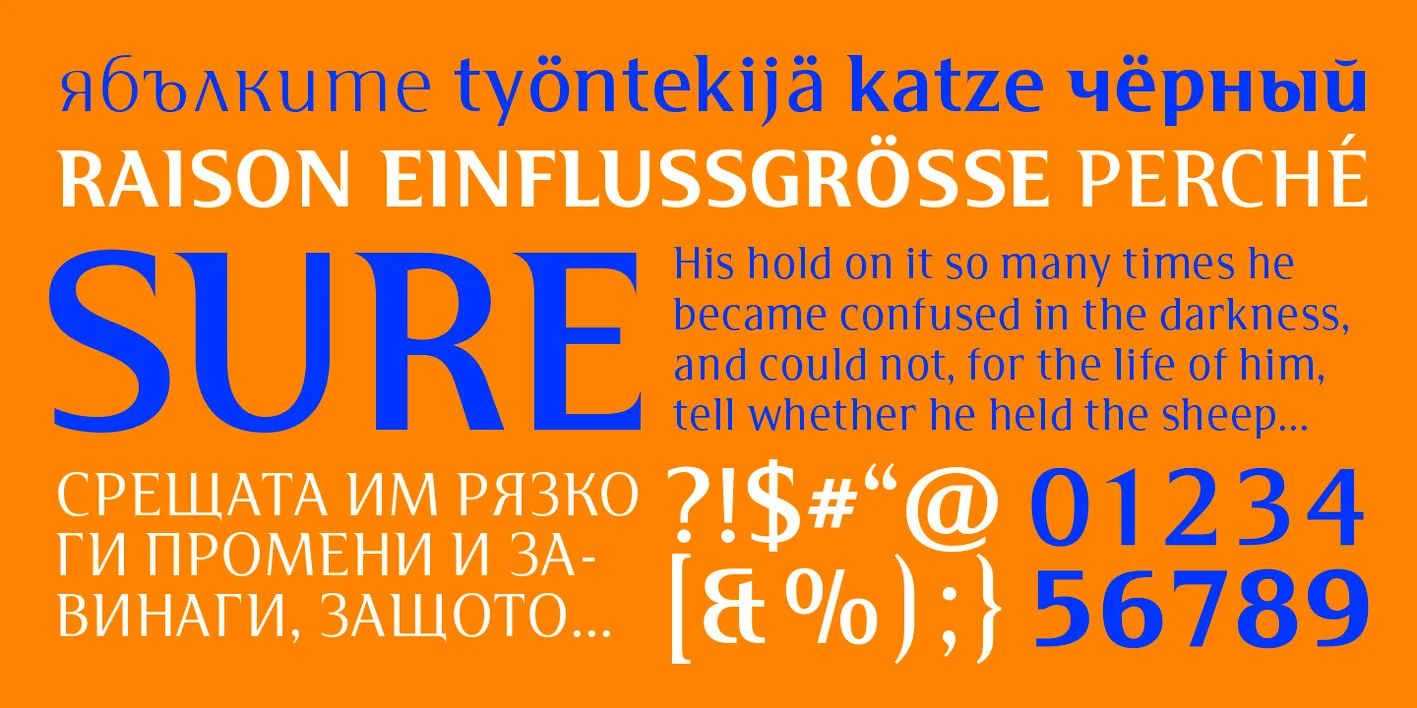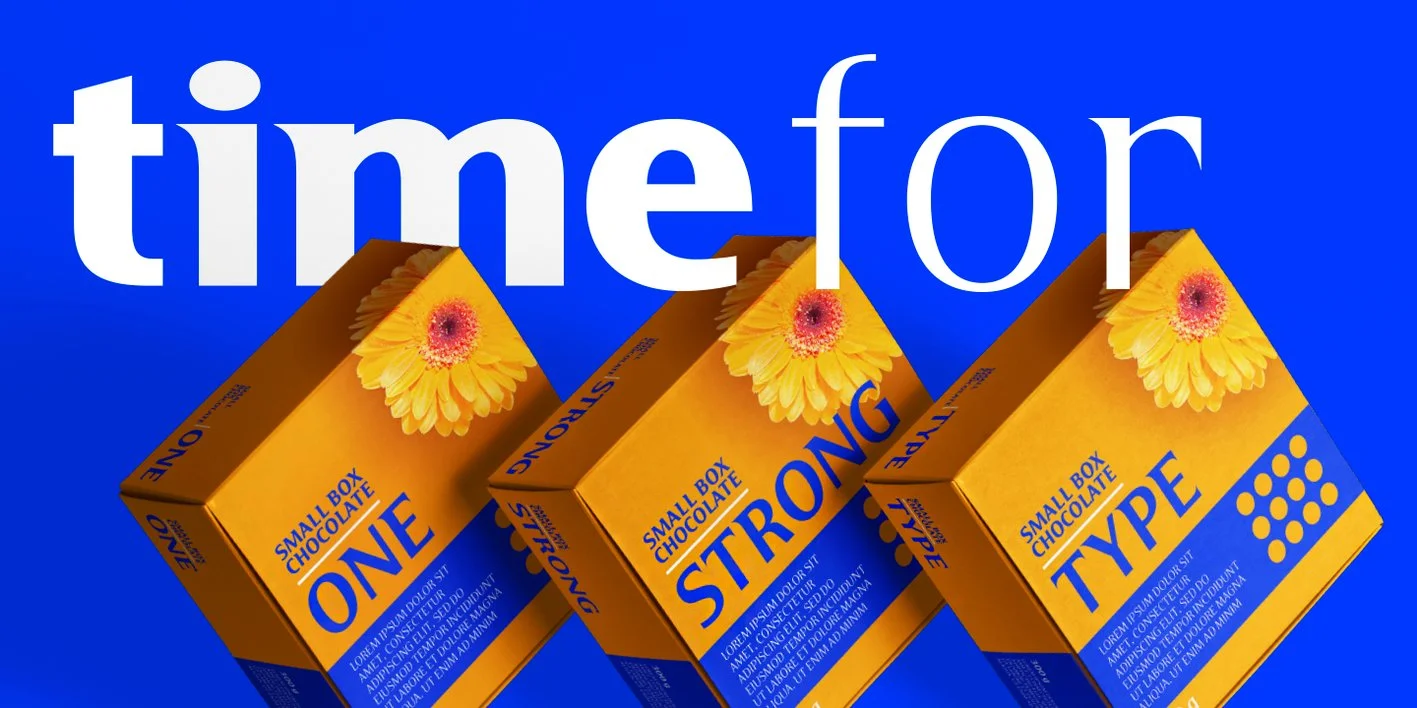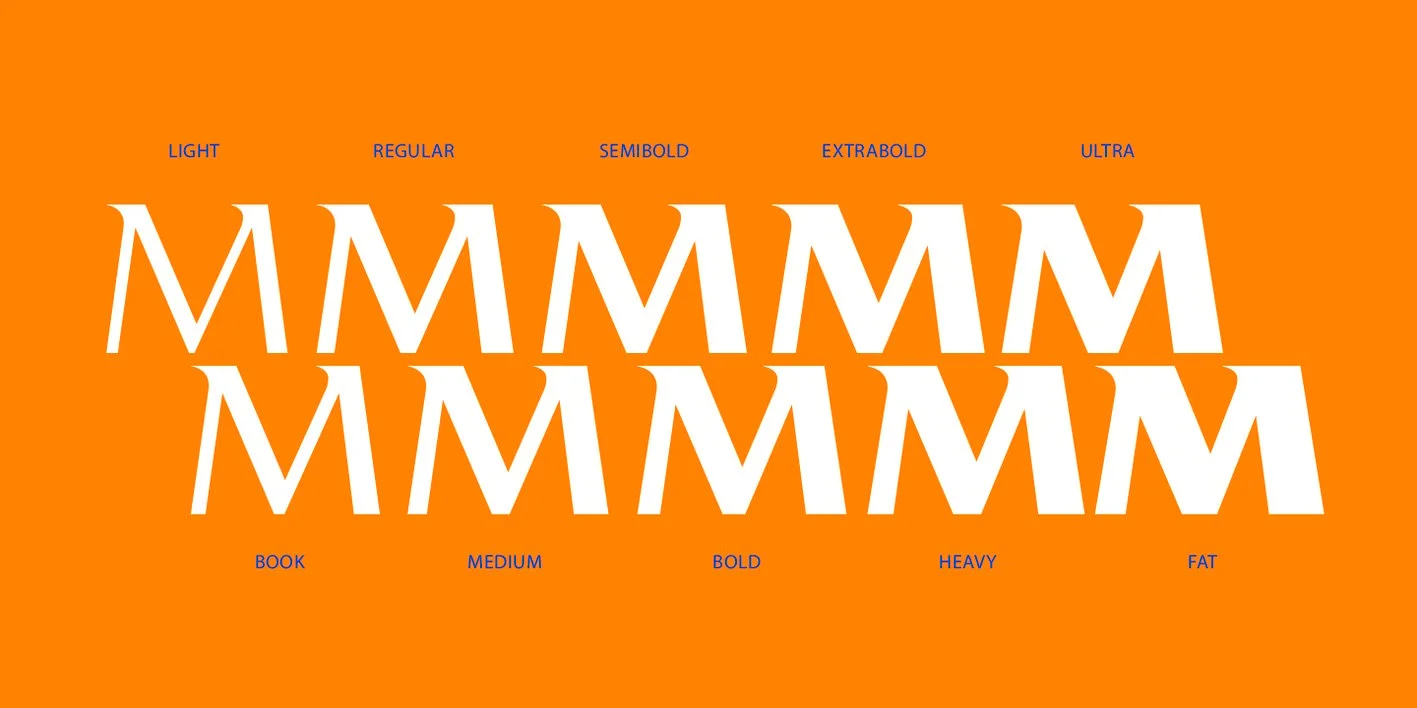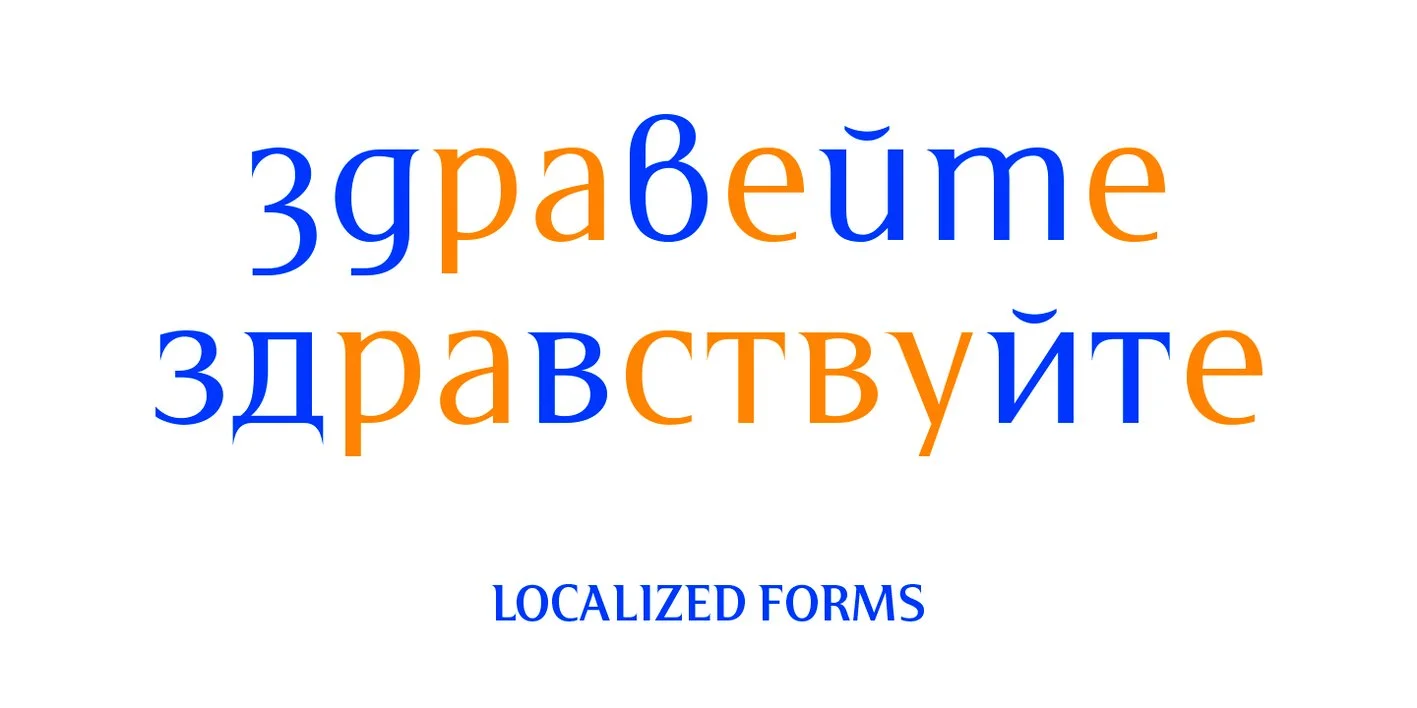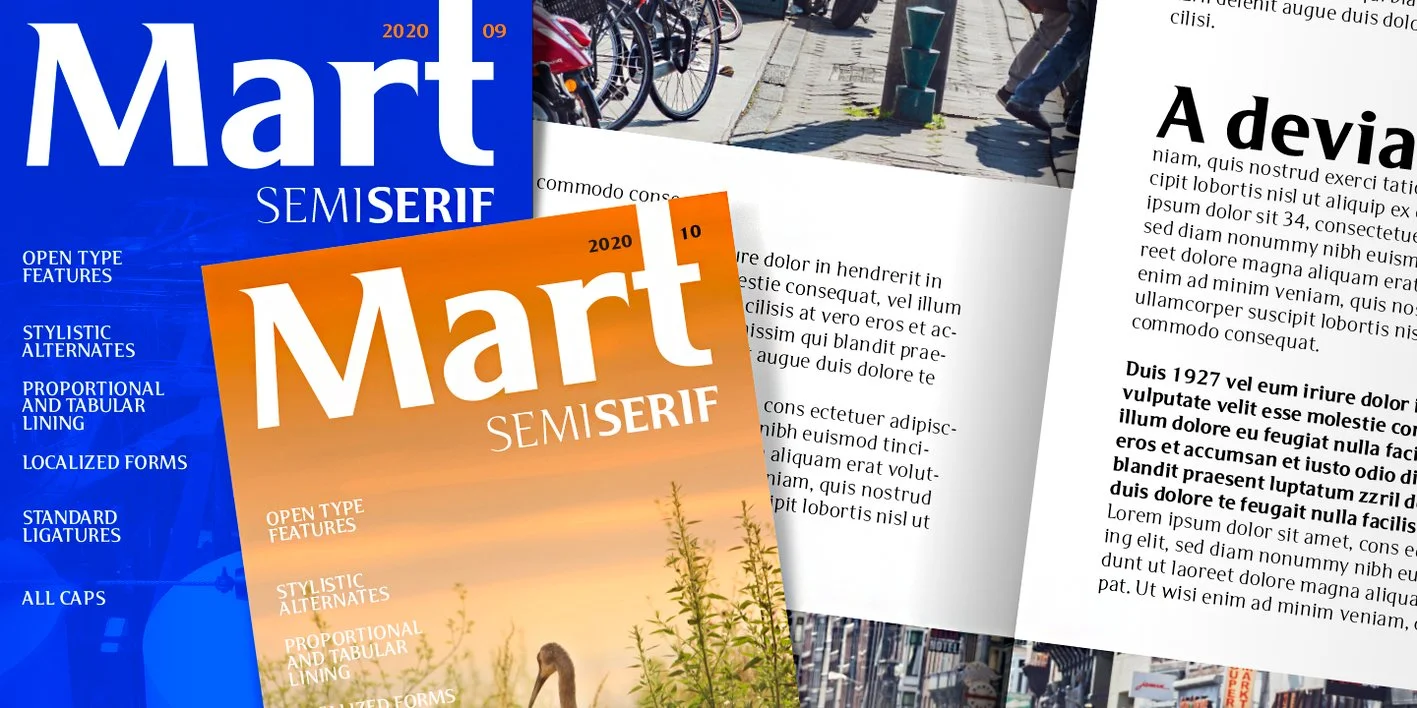
Mart Font
When a design brief calls for both a confident voice that adapts to diverse briefs and immediate visual impact, type choices matter — Mart answers that brief. The typeface brings a versatile sensibility to a broad range of creative disciplines, with distinctive character without sacrificing readability that holds up whether the work is print-first or screen-first.
In practice, Mart proves particularly effective for web design, editorial layouts, environmental graphics, social media graphics, advertising campaigns. Designers reaching for it find that the type decisions feel resolved rather than laboured — a useful quality when client timelines are tight.
The range of applications extends to packaging design, poster creation, logo design, brand identity systems. That breadth is deliberate: the proportions and spacing were stress-tested across a wide range of mock briefs before the typeface was finalised.
At smaller sizes the design retains its character without becoming cluttered. This resilience across scales makes Mart equally suitable for a business card and a billboard — a useful property when assets must scale across a campaign.
Motion designers building title sequences and lower thirds find Mart a reliable choice for projects that demand both personality and restraint. The design avoids the self-conscious quirkiness that dates quickly, settling instead for considered distinctiveness that holds up over time.